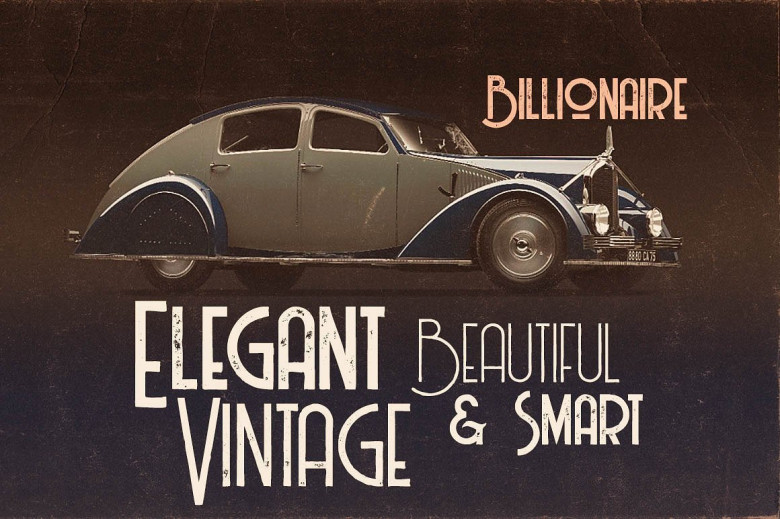
Billionaire Display Font
Thank you for viewing this font. This free font package is a vintage font display. Introducing Billionaire! It is designed by JumboDesign. Unique vintage or retro style custom sans serif font with 6 styles: regular and grunge, thin and thin grunge & medium & medium grunge. Billionaire Perfect for vintage, logotype, clothing, label and badge design.